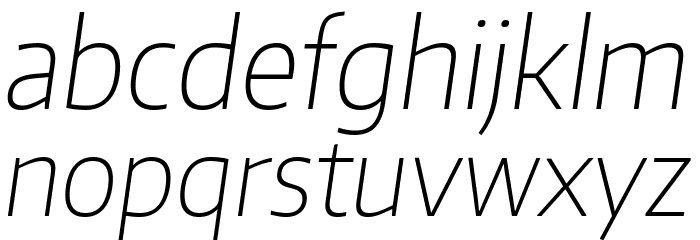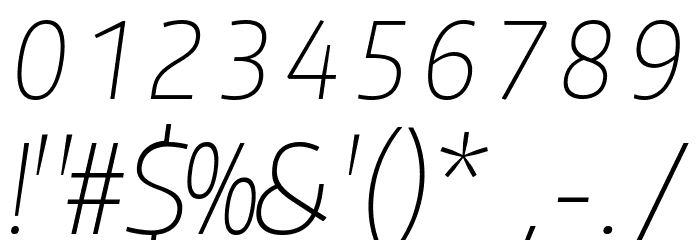
Plata Sans Thin Italic Font
This font exhibits a sleek and modern aesthetic with its thin, elongated letterforms. The italic style adds a dynamic and elegant touch, making it suitable for contemporary designs. The characters are well-spaced, ensuring readability while maintaining a minimalist appearance. The font's clean lines and subtle curves create a sophisticated look, ideal for projects that require a refined and understated typeface. Its versatility allows it to be used in various contexts, from digital interfaces to print media.
A sleek, modern, and thin italic font with a minimalist aesthetic.
- Proposed Projects: Ideal for modern branding, digital interfaces, editorial design, and minimalist posters.